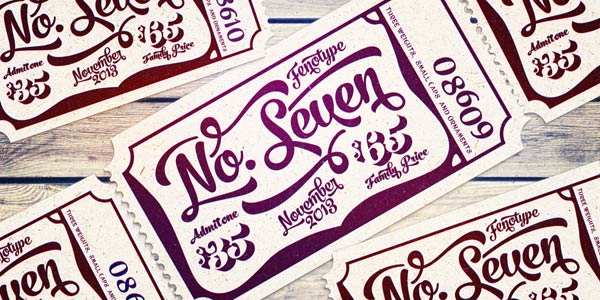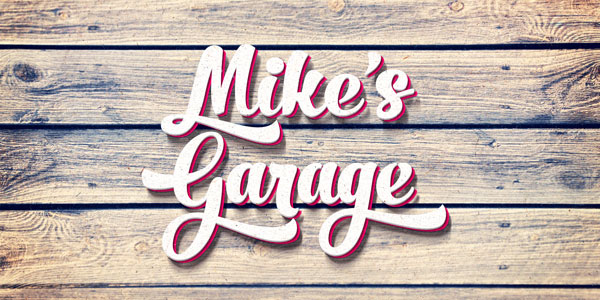
No. Seven Script Family.
The No. Seven script font family was designed in 2013 by Emil Karl Bertell (Fenotype). Its typeface provides a bold vintage script style. No. Seven comes with three weights, a set of ornaments and a block capital “small caps” font version. Plenty of OpenType features ensure amazing typographic possibilities. You can choose Swashes, Contextual, Stylistic or Titling Alternates or Discretionary Ligatures, Tabular or OldStyle Lining to make your titlings look awesome. No. Seven lets you create great vintage style headlines, logos and poster letterings.